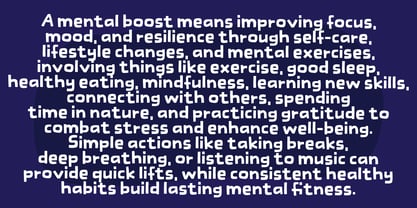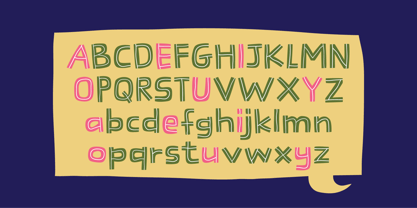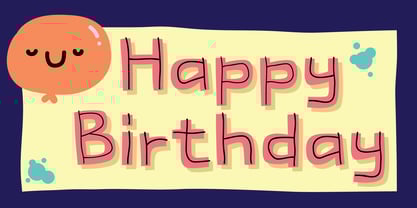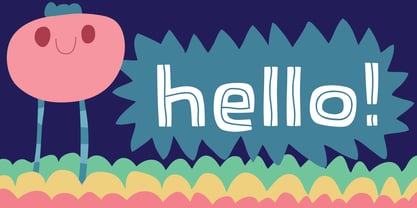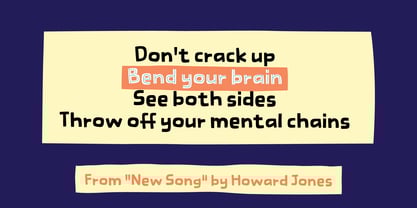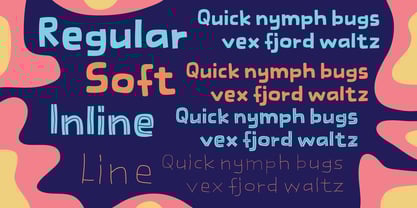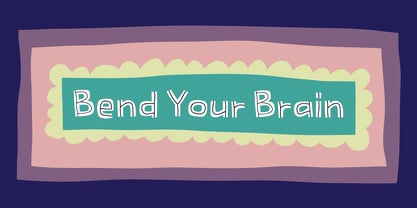
Bend Your Brain
by Bogstav
The Bend Your Brain Font Family was designed by Jakob Fischer and published by Bogstav. Bend Your Brain contains 4 styles and family package options.
Bend Your Brain is my handmade, playful and full of character comic font. With a friendly and informal personality, the font invites to all kids of fun projects. Well suited for positive messages, mental health themes, toys or books for kids, party invitations, packaging or something else that needs that slightly irregular look that characterises Bend Your Brain. I have added several versions - and a version like Bend Your Brain Line mixes very well with the Regular version! Well, the overall look feels cheerful, modern and organic! What a way to present your product! :)
About Bogstav
Bogstav.com was founded in september 2017 and is run by Jakob Fischer (who also runs pizzadude.dk) I concentrate on creating handmade quality fonts and my style is mostly organic looking, cartoonish or in some way influenced by grafitti. All fonts are created by me and comes straight out of Copenhagen, Denmark - just like Caroline Wozniacki, Viggo Mortensen, Mads Mikkelsen, Carlsberg and H.C. Andersen...and Carlsberg! :)